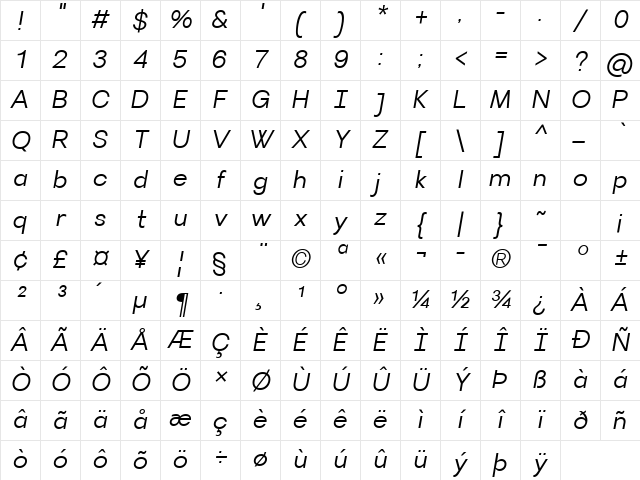
Complete Villeray Semilight Italic glyph index. Displaying only characters natively supported by Villeray Semilight Italic font.
Villeray is a composed and adaptable typeface that performs quietly and consistently across a wide range of design contexts. The slanted form adds forward momentum and visual energy. Its slender proportions lend an understated elegance to any composition.
Pro Tip: Use Villeray for emphasis, pull quotes, and subheadings where its slanted energy can add rhythm to the layout.